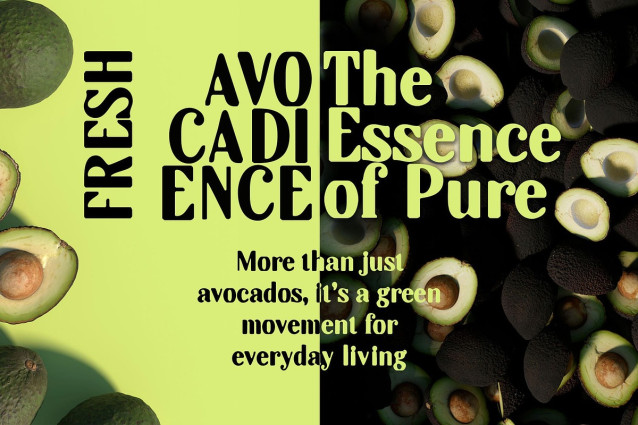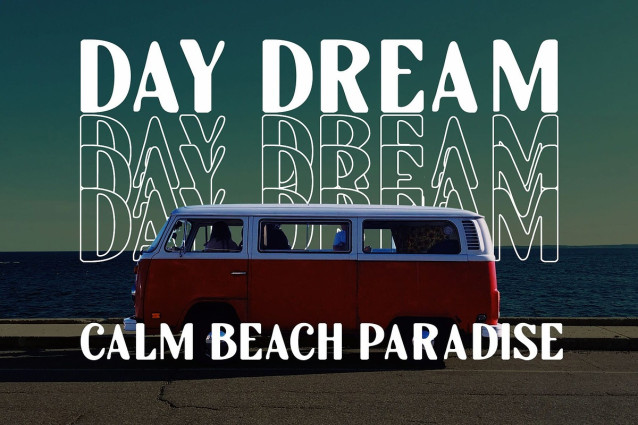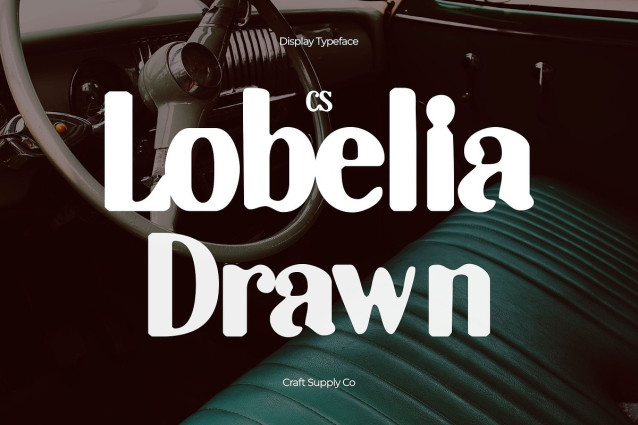
CS Lobelia Drawn Font
CS Lobelia Drawn Font is a serif font designed with a unique drawn effect that mimics stamp-like impressions. Its retro charm and classic structure make it perfect for projects that seek authenticity and a touch of nostalgia. The font balances elegance with a handcrafted feel, giving your typography a relaxed yet stylish character.
Stamp-Inspired Texture What sets CS Lobelia Drawn apart is its textured, imperfect strokes that resemble the look of stamped ink on paper. This detail adds warmth and individuality, transforming clean serif forms into something more expressive and tactile. The result is a typeface that feels both vintage and contemporary, ideal for eye-catching designs.
Perfect for Branding and Editorials From branding projects to editorial layouts, CS Lobelia Drawn adapts beautifully across creative mediums. Its retro serif structure conveys professionalism, while its drawn effect introduces creativity and charm. Use it for magazine titles, logos, packaging, or stamp-inspired graphics to give your work a memorable and stylish presence.
Versatile Retro Elegance CS Lobelia Drawn offers a versatile typographic solution for designers seeking retro elegance with artistic flair. It thrives in both formal and casual contexts, making it suitable for a wide range of applications. Whether you’re designing for print or digital, this font provides a vintage-inspired voice that enhances any project.